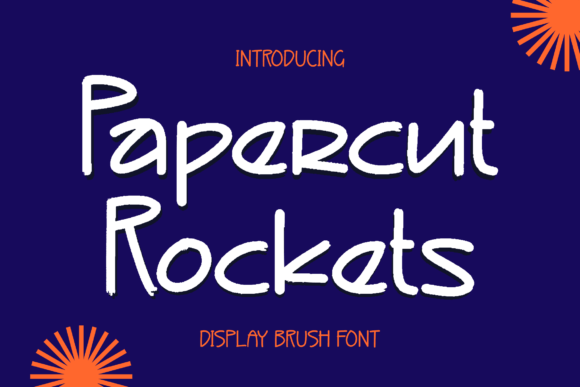
Prepare to be swept off your feet by Papercut Rockets Font, a mesmerizing script font family that will tantalize your senses and leave you craving for more. Crafted with precision by the renowned Letterfabric Studio, this font collection is a culinary masterpiece, an exquisite blend of flavors that will elevate your designs to gastronomic heights.
Picture this: the rich, velvety texture of a sumptuous chocolate cake, the delicate crumb of a freshly baked croissant, the crisp, golden crust of a perfectly roasted chicken. With Papercut Rockets Font, these delectable delights come to life, transforming your designs into a feast for the eyes.
Step into a world where fonts become culinary artistry, where every letter is a carefully crafted morsel, a taste sensation waiting to be savored. Indulge in a typographic smorgasbord of delectable delights, from the smooth, creamy curves of the lowercase letters to the bold, assertive strokes of the capitals.
Let your imagination run wild as you explore the endless possibilities of Papercut Rockets Font. Picture your logo adorned with this font, the name of your restaurant standing tall and proud, inviting customers to embark on a culinary adventure. Or perhaps you envision your product packaging adorned with these elegant letters, whispering promises of delectable treats within.
With Papercut Rockets Font, your designs will become a feast for the eyes, an irresistible invitation to indulge in a world of culinary wonders. So why settle for ordinary fonts when you can savor the extraordinary? Embark on a typographic odyssey with Papercut Rockets Font today and let your designs dance with flavor!